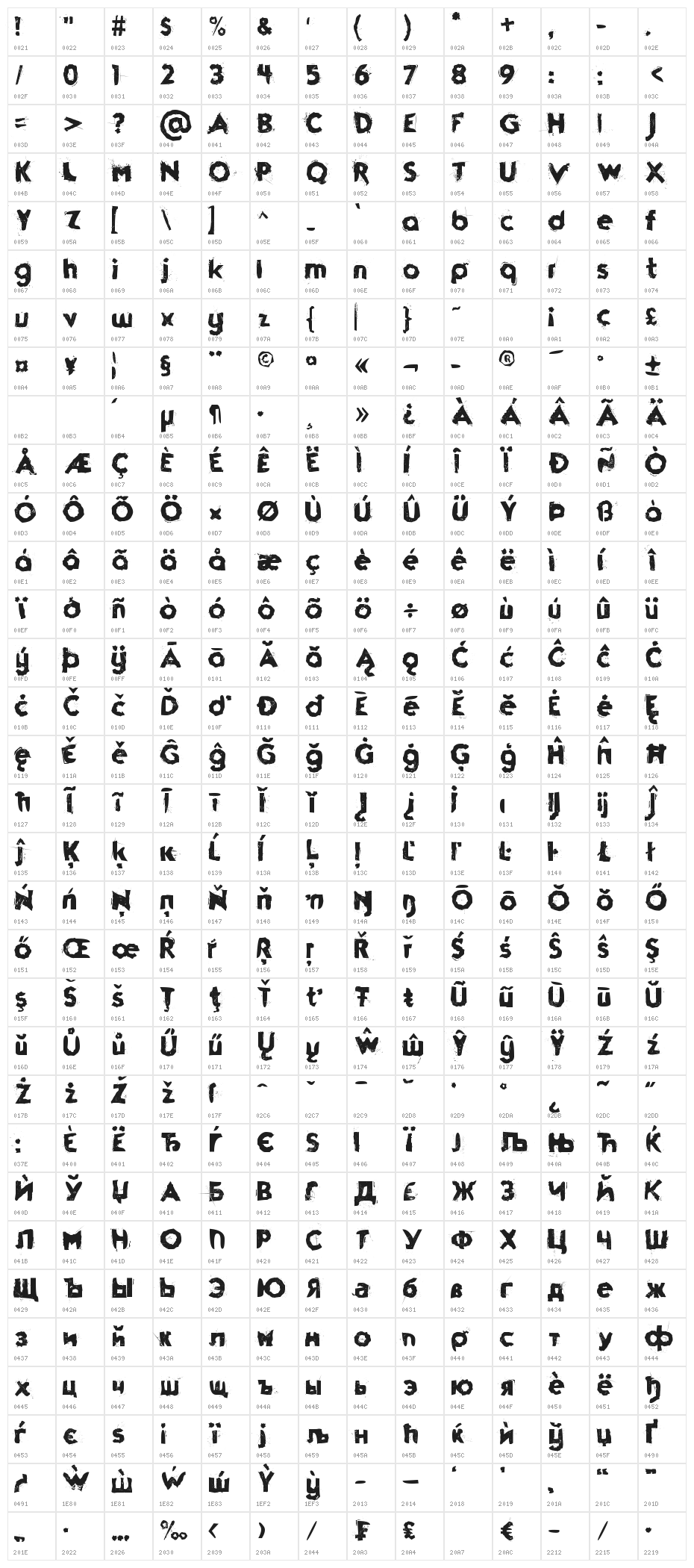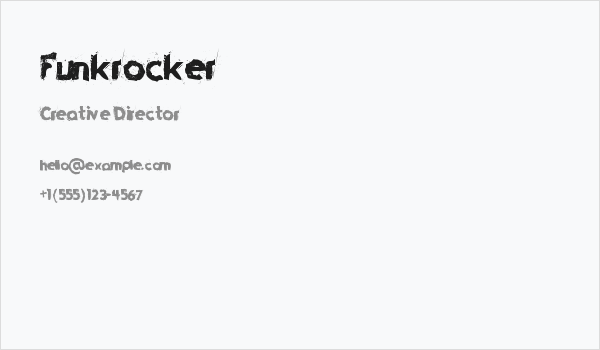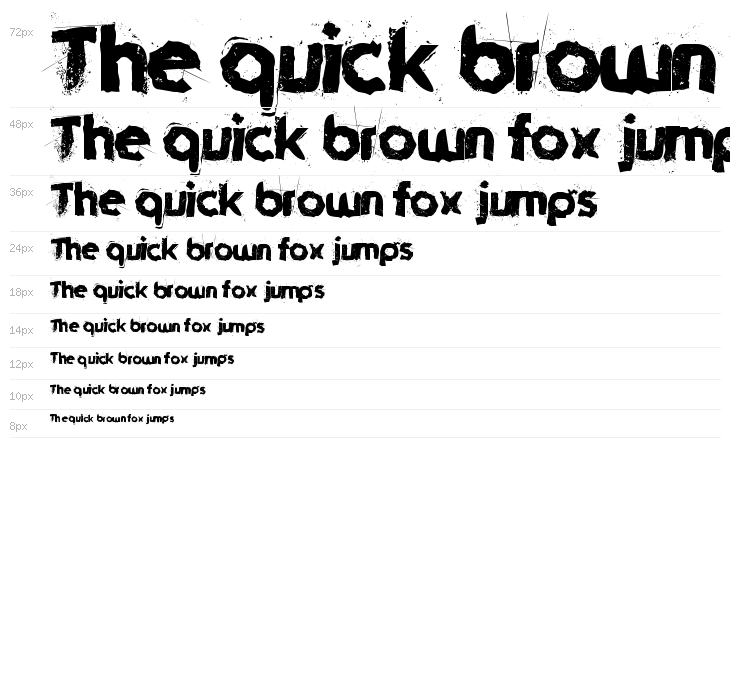
Funkrocker Font
Funkrocker Description
This font exudes a bold, grunge aesthetic with its rough, textured appearance. Each character is uniquely distressed, giving it a raw and edgy feel. The uppercase and lowercase letters maintain a consistent style, with jagged edges and irregular shapes that enhance its rebellious vibe. The numbers and special characters follow suit, adding to the font's cohesive look. Its artistic imperfections make it stand out, perfect for projects that require a touch of urban or alternative flair.
| Overall Style | Grunge, Urban, Edgy |
| Proposed Projects | Ideal for music album covers, streetwear branding, event posters, and any project needing an edgy, urban touch. |